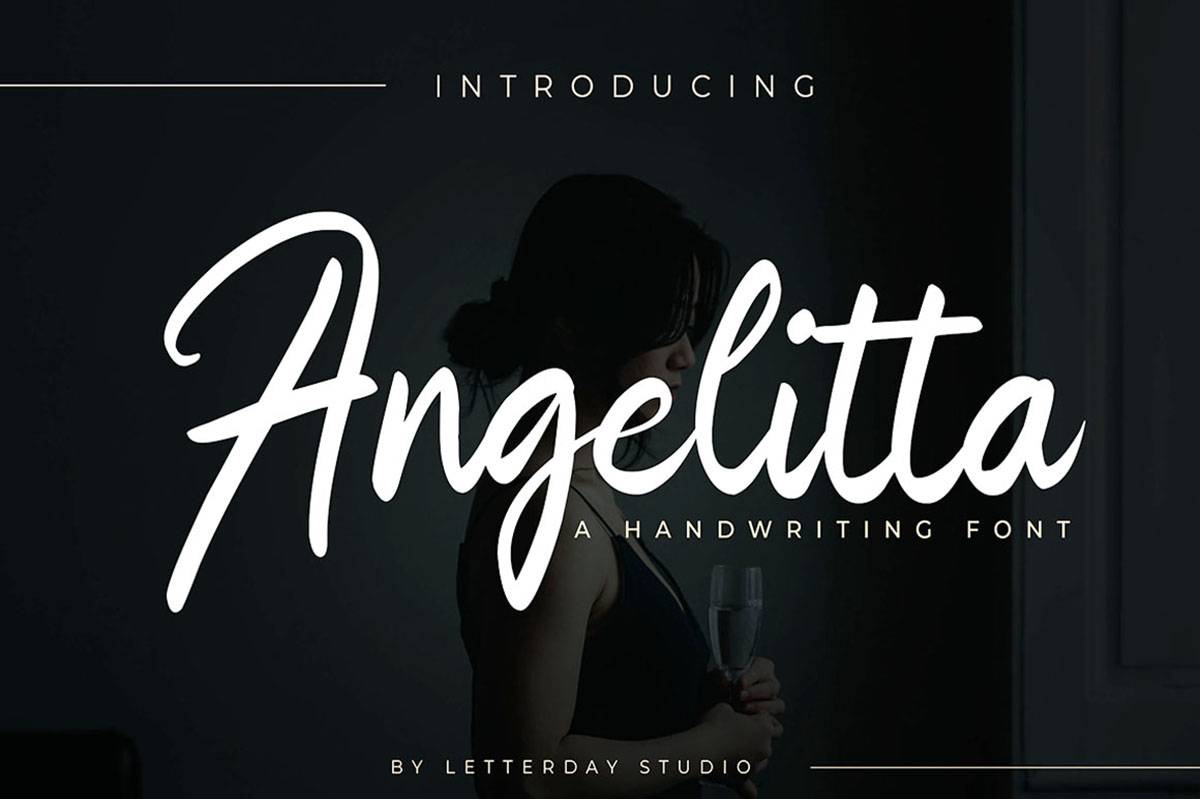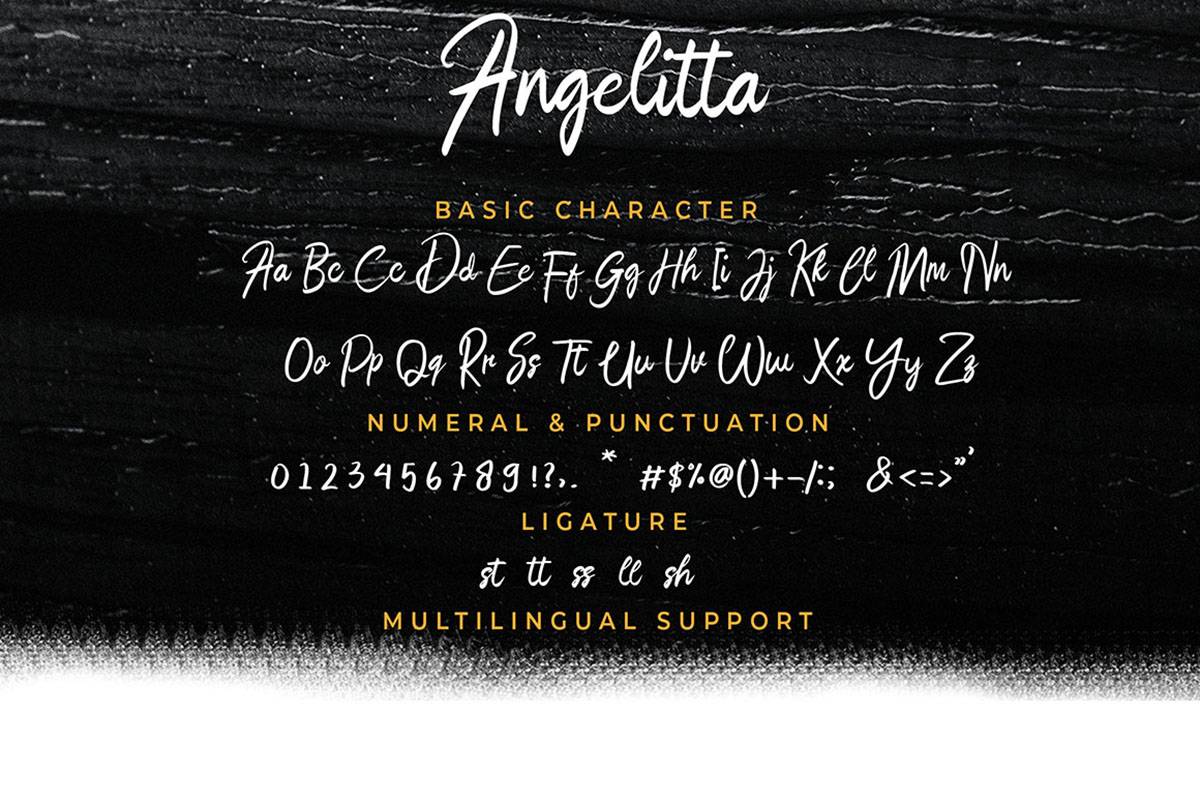
Angelitta is a lively and elegant script font with a handwritten feel, featuring smooth, flowing strokes that give it a casual yet refined look. Its moderate weight and slightly condensed letterforms make it ideal for stylish branding, invitations, and creative headlines where a personal, approachable touch is desired. This font works well in designs aiming to convey warmth and sophistication without appearing too formal or rigid.
Angelitta Font
About Angelitta Font
| Font family | Angelitta Font |
| Designer | Letterday Studio |